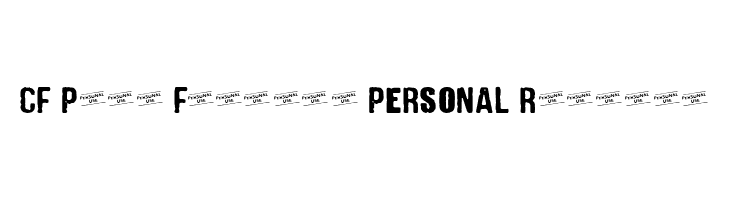
A bold, distressed font with a punk-inspired, rebellious aesthetic.
A bold, distressed font with a grunge, punk aesthetic.
A bold, distressed font with a grunge aesthetic, perfect for impactful designs.
A bold, distressed font with a gritty, urban aesthetic.
A bold, eclectic font with a punk rock aesthetic and distressed textures.
A bold, distressed font with a punk rock, hand-painted style.
A bold, industrial font with punk and cyborg influences.
A bold, punk-inspired font with spiky, irregular edges and high contrast.
A bold, brushstroke-style font with a dynamic and artistic appearance.